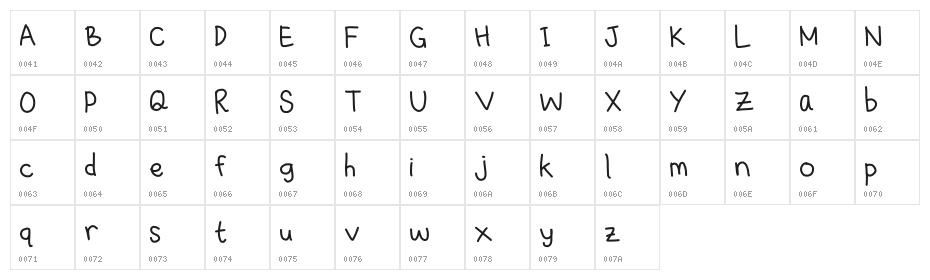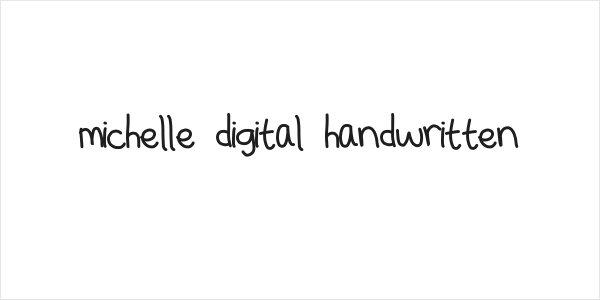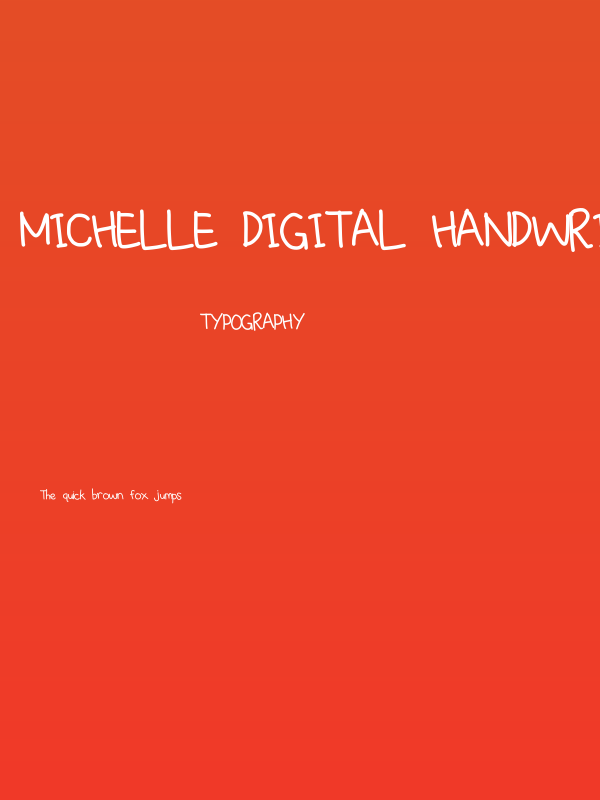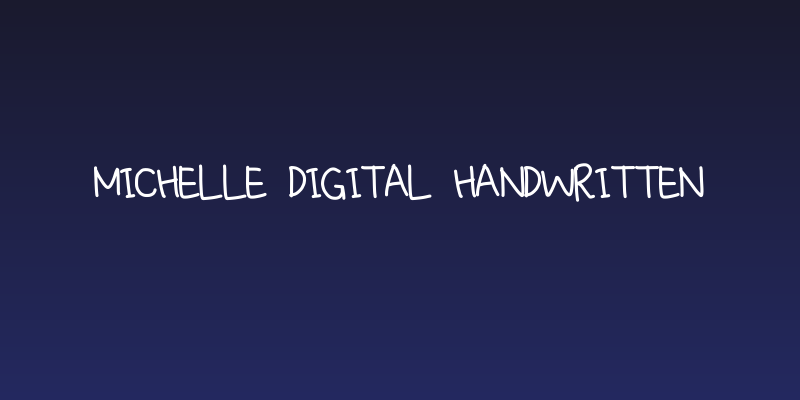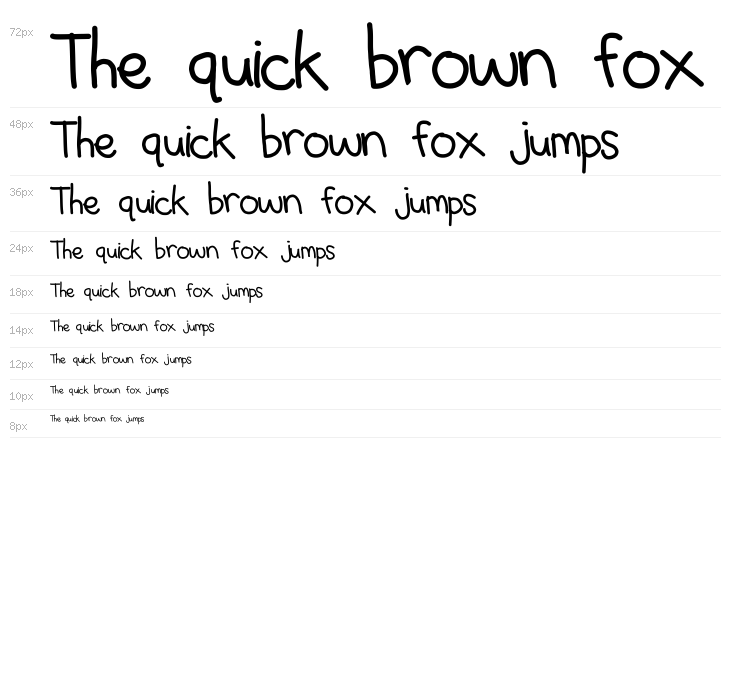
michelle digital handwritten Font
michelle digital handwritten Description
This font features a playful, handwritten style with a casual and friendly appearance. The letters are slightly irregular, mimicking the natural flow of handwriting. Each character has a consistent stroke width, contributing to a uniform look while maintaining a personal touch. The uppercase and lowercase letters are well-proportioned, and the numerals are clear and legible. Special characters are included, enhancing the font's versatility. This style is ideal for projects that require a personal, informal touch, such as greeting cards, invitations, or social media graphics.
| Use Case | Headlines, Informal text, Personal projects |
| Proposed Projects | Ideal for greeting cards, invitations, social media graphics, and personal branding. |